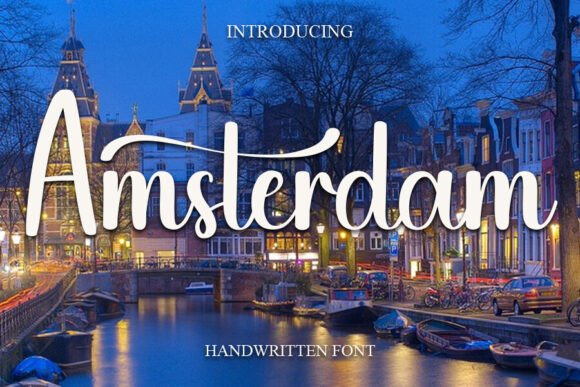
Whether you’re designing holiday cards, invitations, or cheerful social media posts, Amsterdam adds that personal handwriting feel that makes every project special.
✨ Overview of Amsterdam Font
The Amsterdam Font is a beautiful handwritten typeface with an inviting personality. Its playful curves and flowing letterforms feel as though they were penned by a skilled calligrapher. While it’s especially popular during the holiday season—thanks to its warm, cozy vibe—it’s versatile enough to be used all year round for weddings, crafts, branding, and more.
The font’s appeal lies in its organic strokes, slightly imperfect lines, and decorative swashes, which bring text to life. It’s the kind of typeface that turns a simple message into a personal expression.
🌟 Key Features of Amsterdam Font
Handwritten Look & Feel – Mimics natural pen strokes for authenticity.
Playful Curves & Swirls – Adds elegance and charm to every letter.
Versatile Use – Great for both festive designs and everyday creativity.
Warm & Inviting Personality – Instantly makes designs more personal.
🎯 Best Uses for Amsterdam Font
The Amsterdam Font is particularly suited for projects that require a personal, heartfelt touch. Here are some ideal applications:
Holiday Greeting Cards – Perfect for Christmas, New Year, and seasonal wishes.
Wedding Invitations – Adds romantic flair to formal announcements.
Event Branding – For parties, baby showers, or festive gatherings.
Home Décor Projects – Great for printable wall art or DIY crafts.
Logos & Small Business Branding – Works beautifully for handmade product labels, bakeries, florists, and boutique shops.
Social Media Graphics – Eye-catching typography for Instagram, Pinterest, and Facebook posts.
🎨 Design Tips for Using Amsterdam Font
Pair with Sans Serif Fonts – Use a clean font like Montserrat for body text to balance Amsterdam’s decorative style.
Play with Size & Swashes – Make headings large and experiment with stylistic alternates for a dynamic look.
Use Festive Colors – Gold, red, green, and cream tones enhance its holiday appeal.
Combine with Textures – Overlay the font on watercolor or kraft paper backgrounds for a handmade feel.
Add Decorative Elements – Use borders, ribbons, or snowflakes to complement its cozy style.
✅ Why Designers Love Amsterdam Font
Looks Like Real Handwriting – Adds authenticity and charm.
Seasonal & Year-Round Use – Works for Christmas and beyond.
Versatile Style – Elegant enough for weddings, fun enough for crafts.
Memorable Personality – Instantly stands out in creative projects.
Q4. Which fonts pair best with Amsterdam?
Amsterdam pairs well with clean, minimal typefaces like Lato, Open Sans, or Raleway for a balanced design.
Q5. Is Amsterdam good for small print?
It’s best used for medium to large text sizes, as its decorative swirls might lose detail in very small prints.
Q7. Is Amsterdam Font only for festive designs?
Not at all. While it shines in holiday projects, it’s also perfect for weddings, motivational quotes, and creative branding all year round.
📌 Final Thoughts
The Amsterdam Font is more than just a typeface—it’s a mood-setter. Its playful curves and handwritten style bring a personal, heartfelt energy to any design. Whether you’re crafting a cozy Christmas card, designing a romantic wedding invitation, or building a friendly brand identity, Amsterdam is your go-to font for charm and warmth.